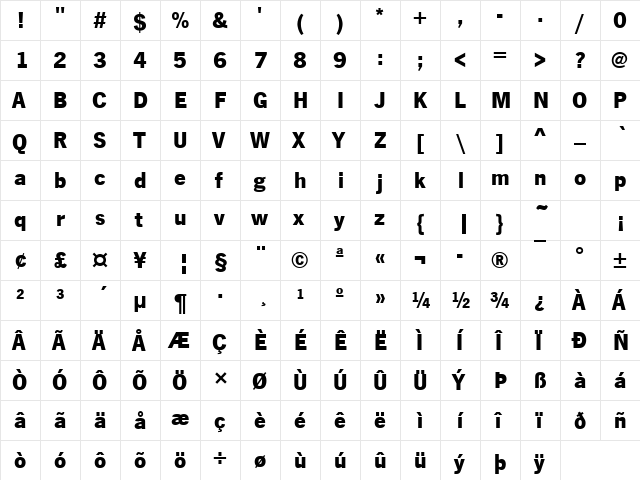
News Gothic Becker Bold
Design Context for News Gothic Becker Typeface
News Gothic Becker takes a clean, functional approach — its unadorned letterforms prioritise legibility and work reliably across screen and print environments. The heavy weight commands attention and anchors typographic hierarchies.
Well-suited to navigation labels, product packaging, and anywhere legibility at scale is essential.
Font Pairing: Use News Gothic Becker for headlines alongside a lighter-weight sans or serif for body copy to establish clear visual hierarchy.
Pro Tip: Use News Gothic Becker for UI labels, navigation, and short-form body copy where clean legibility is the priority.